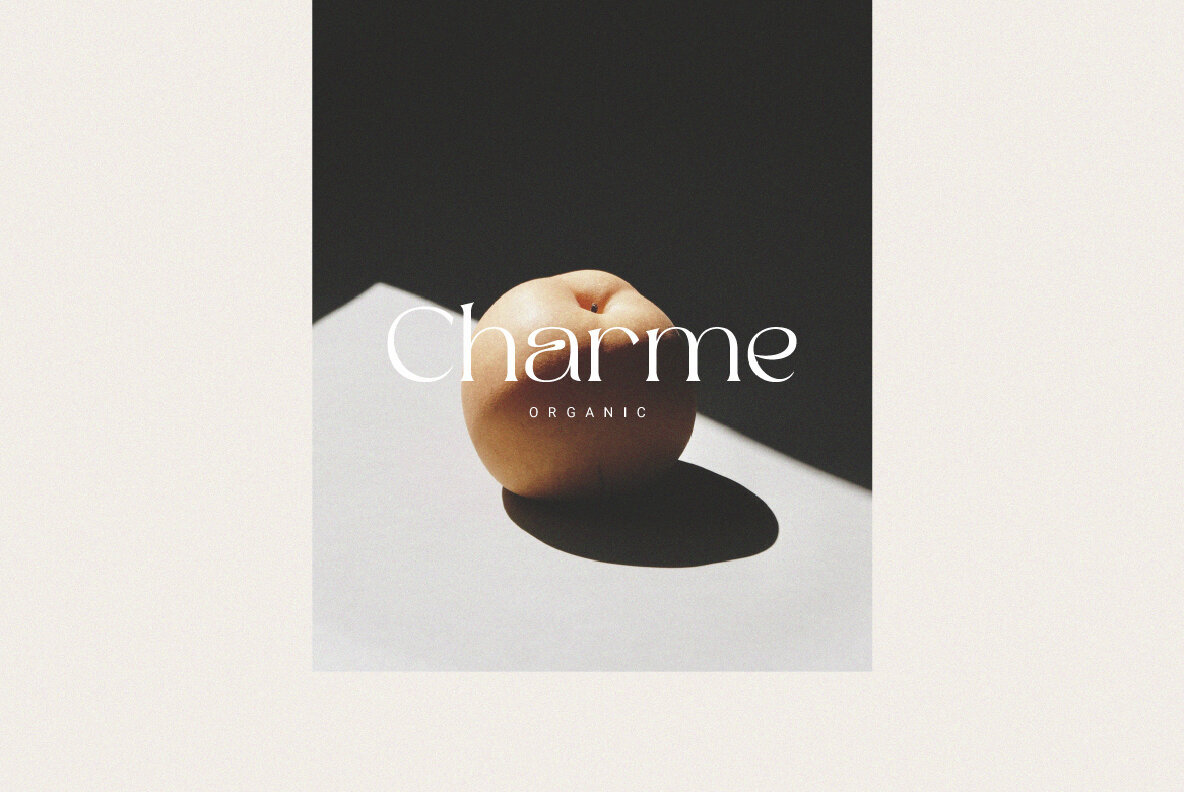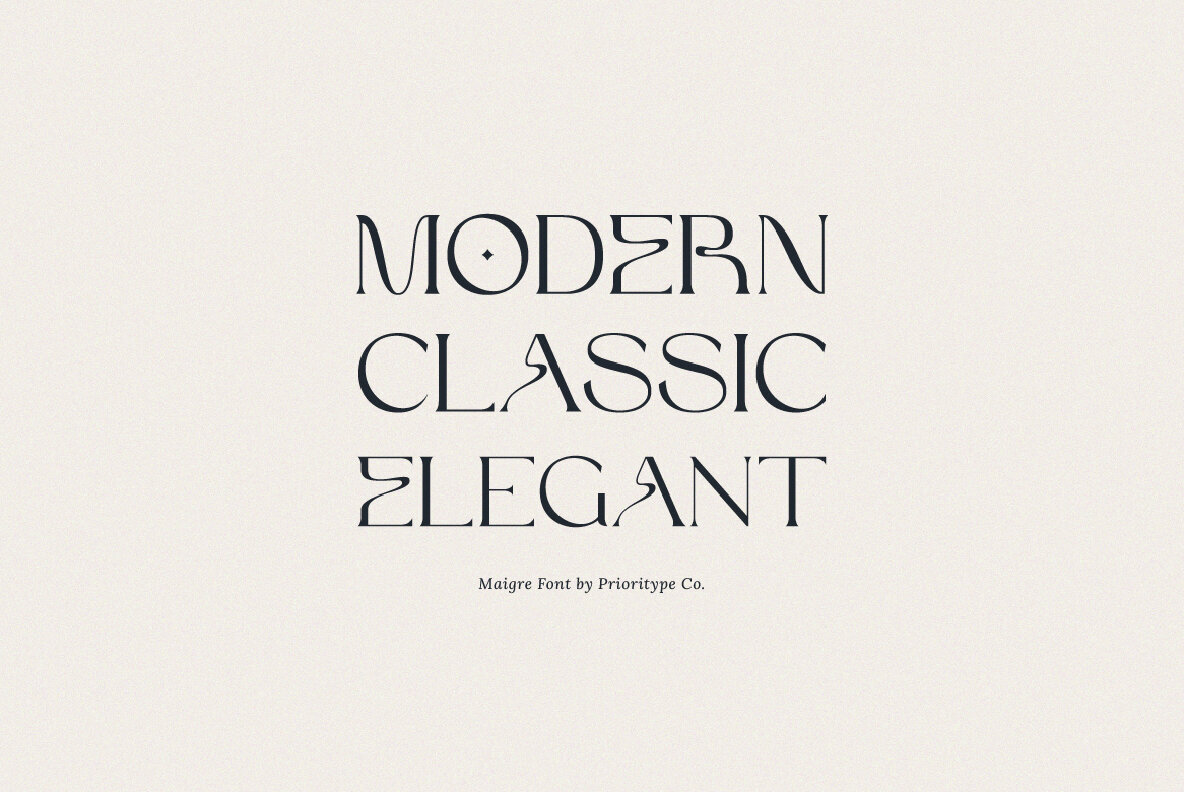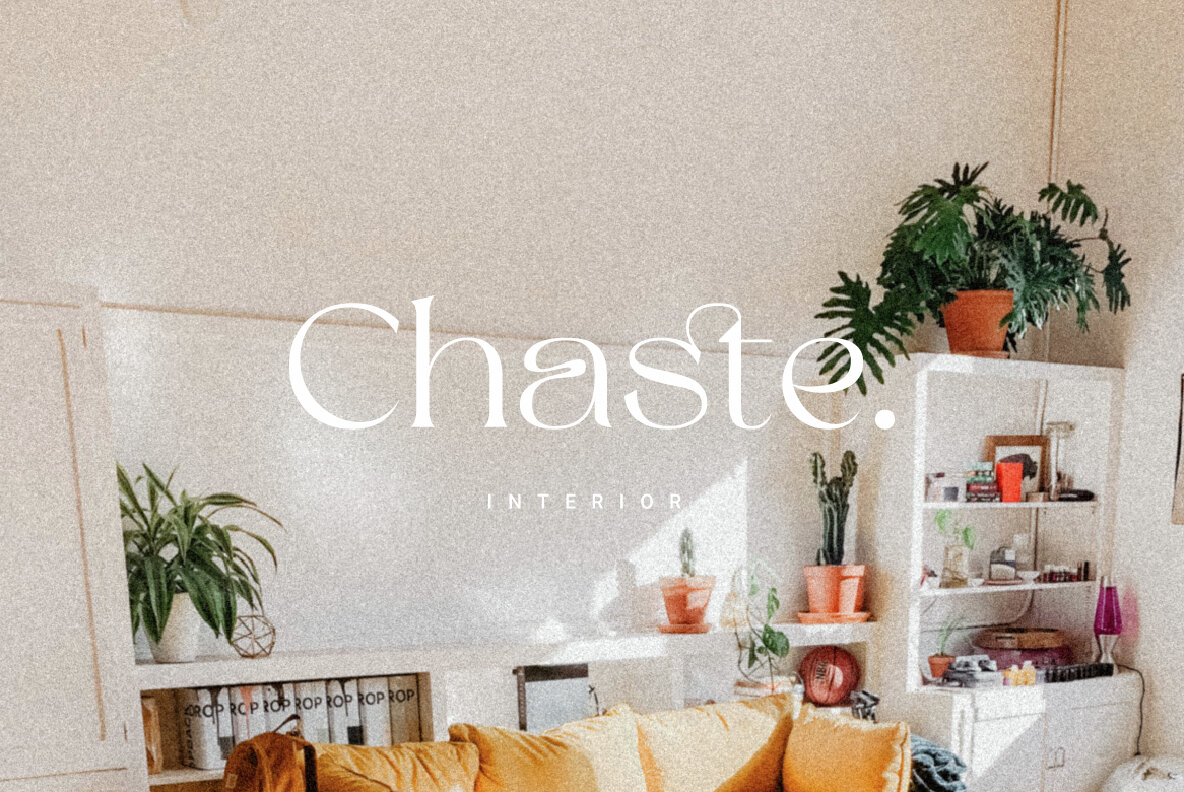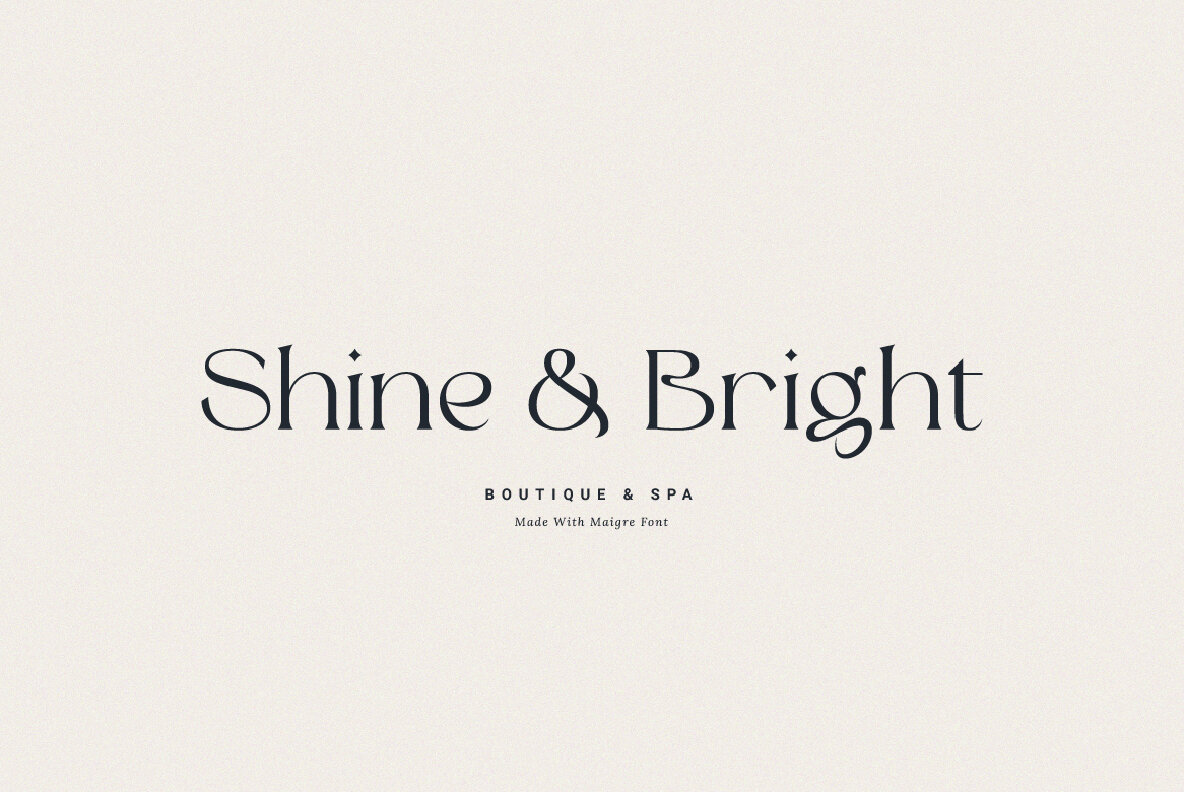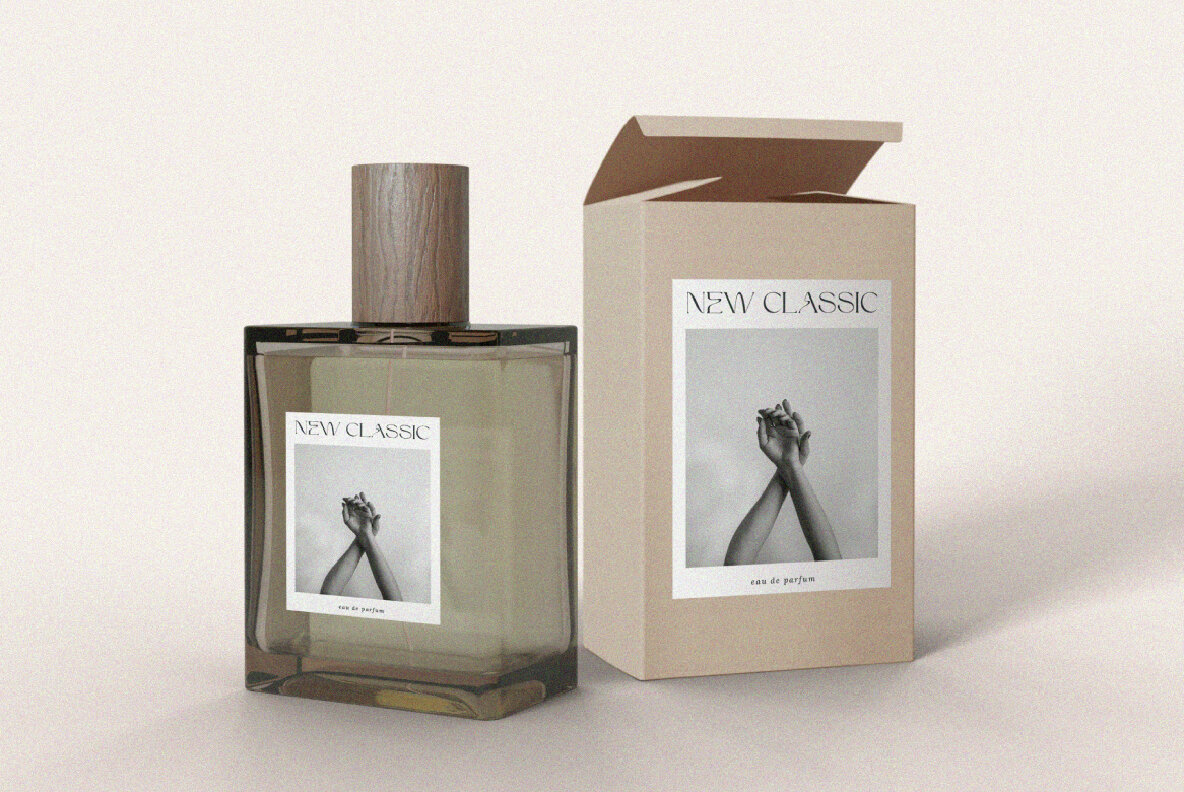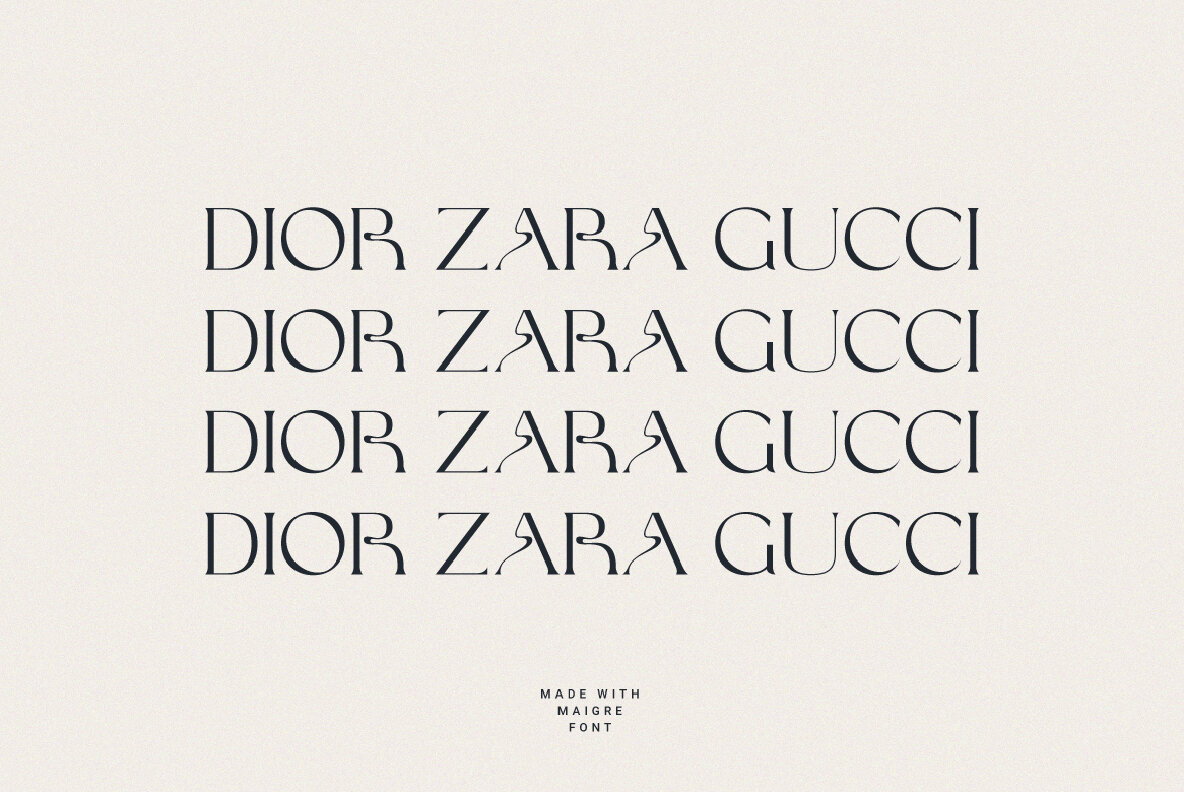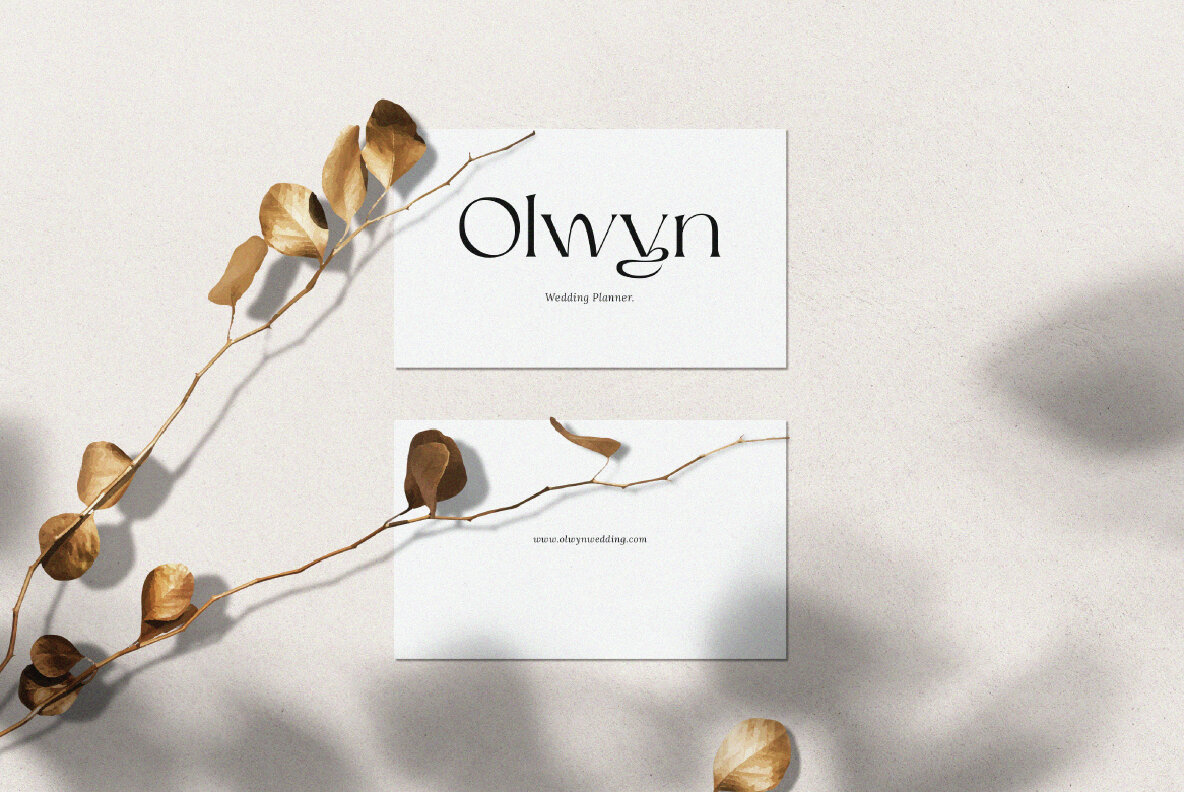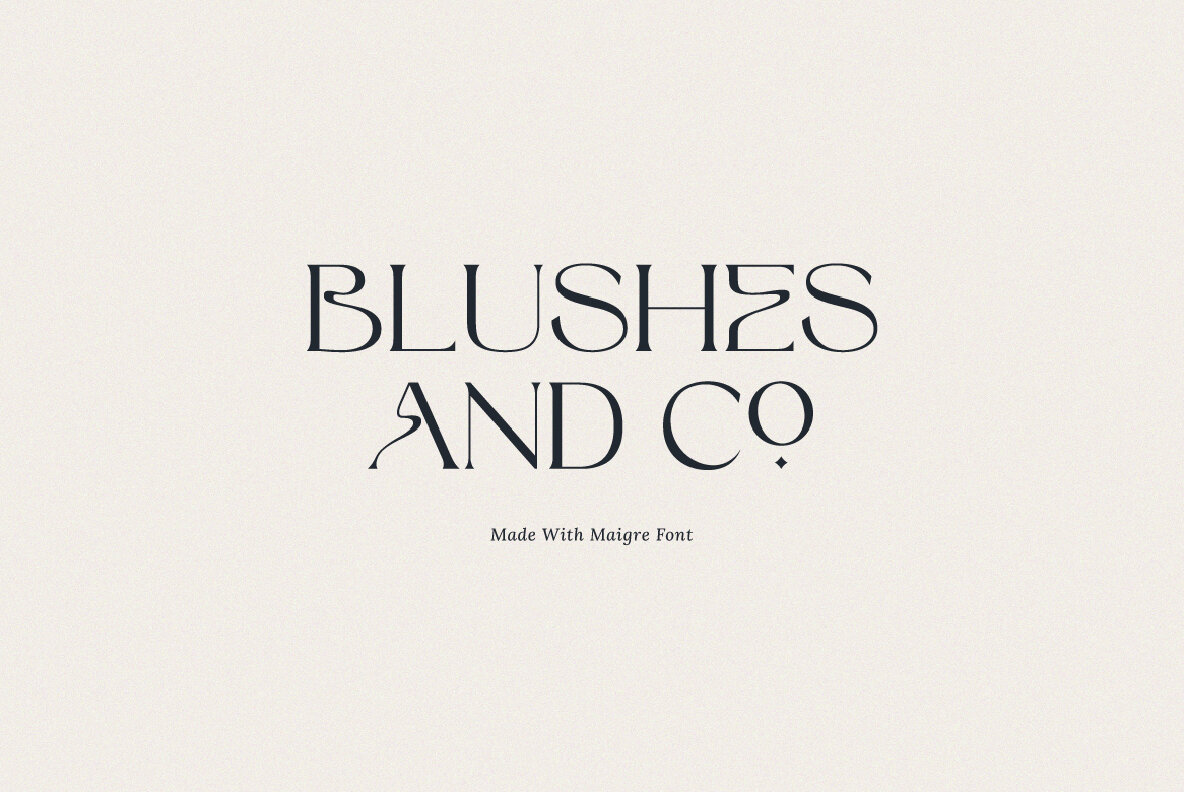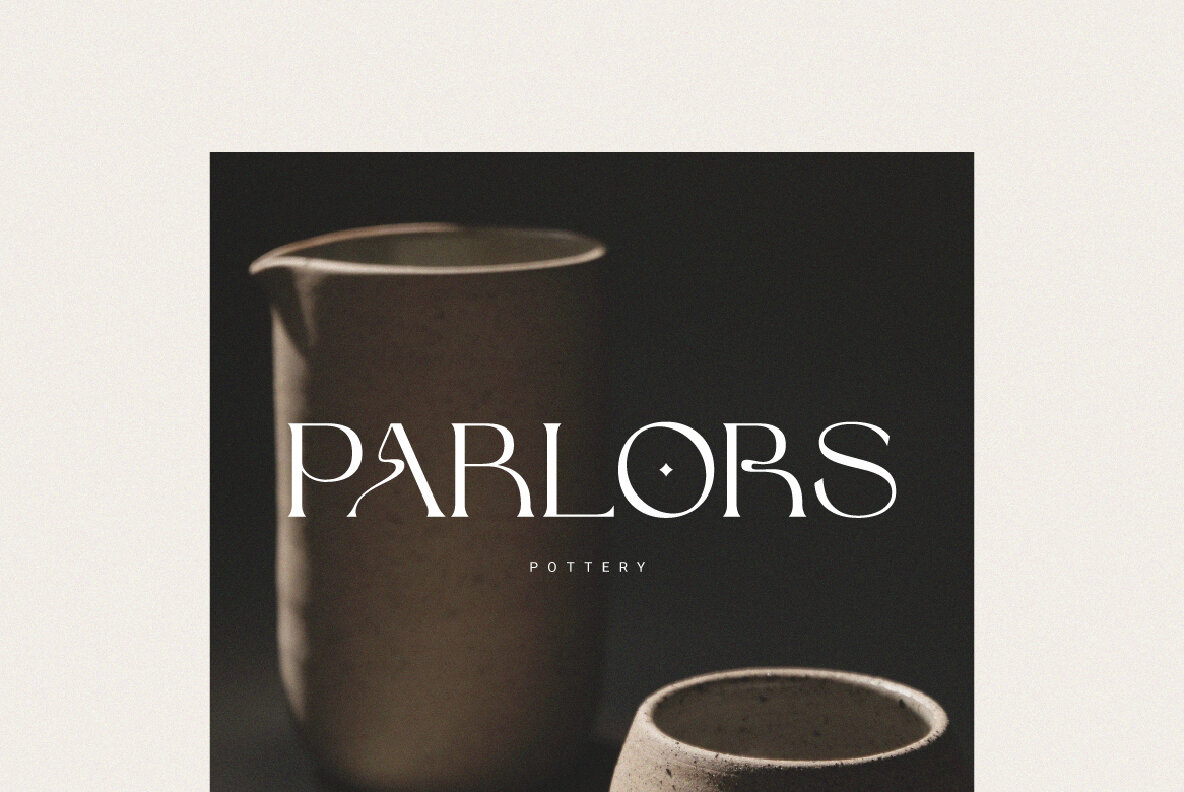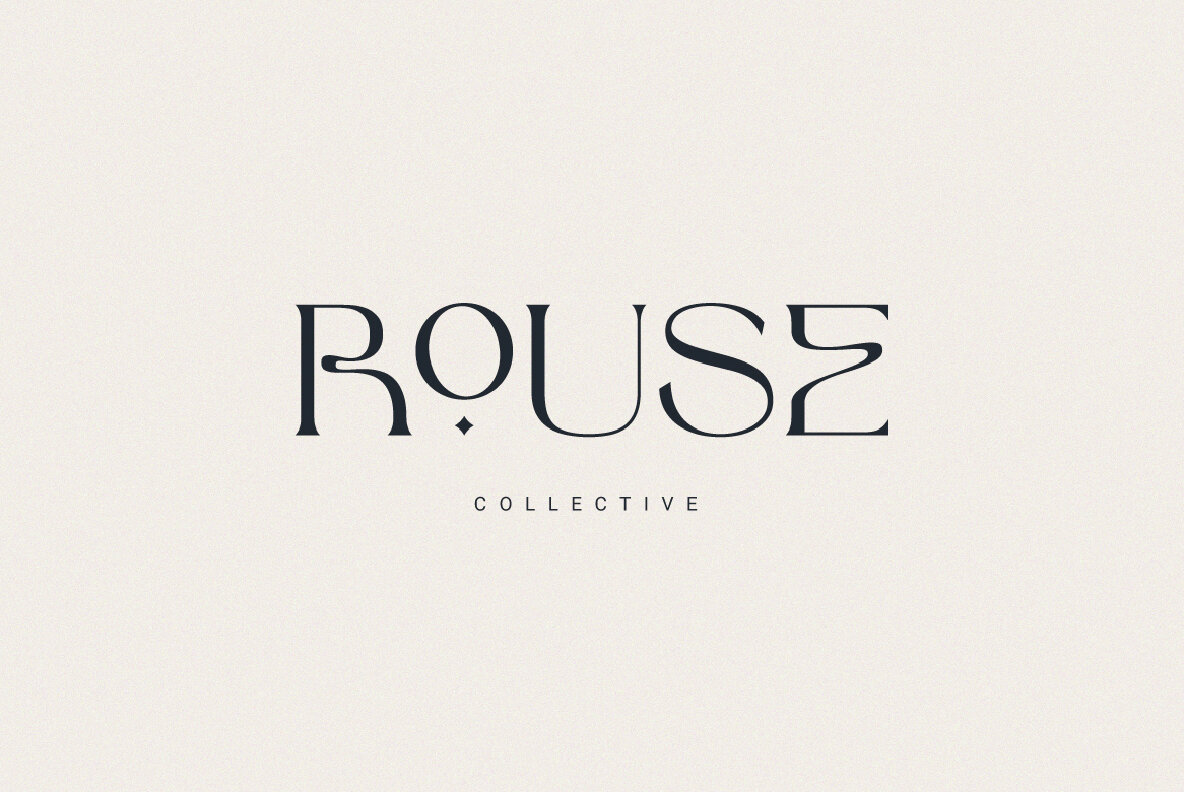
Maigre Font
Maigre Regular
The Maigre font from Prioritype Co. is a refined serif typeface that blends modern elegance with classic style. Perfect for branding projects, logos, magazines, and social media graphics, Maigre offers a sophisticated touch to any design.Maigre: Elegant Serif Typeface for Versatile Designs